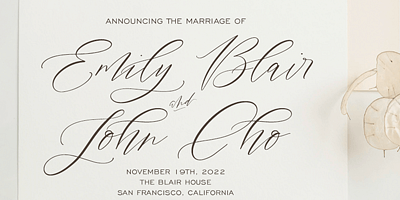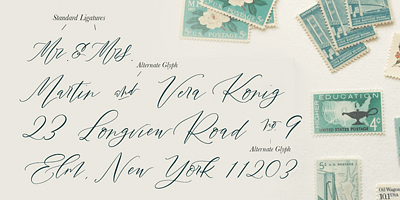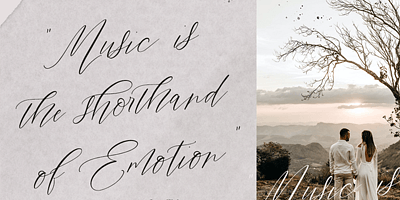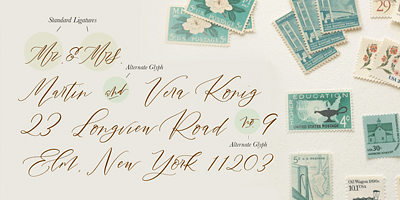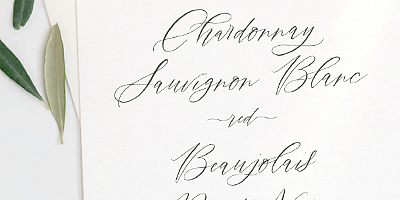
La Bohemienne is a graceful modern calligraphy script. It’s Opentype features replicate the personality of handcrafted penmanship. With clean elegant lines, it’s a natural choice for weddings and sophisticated events.